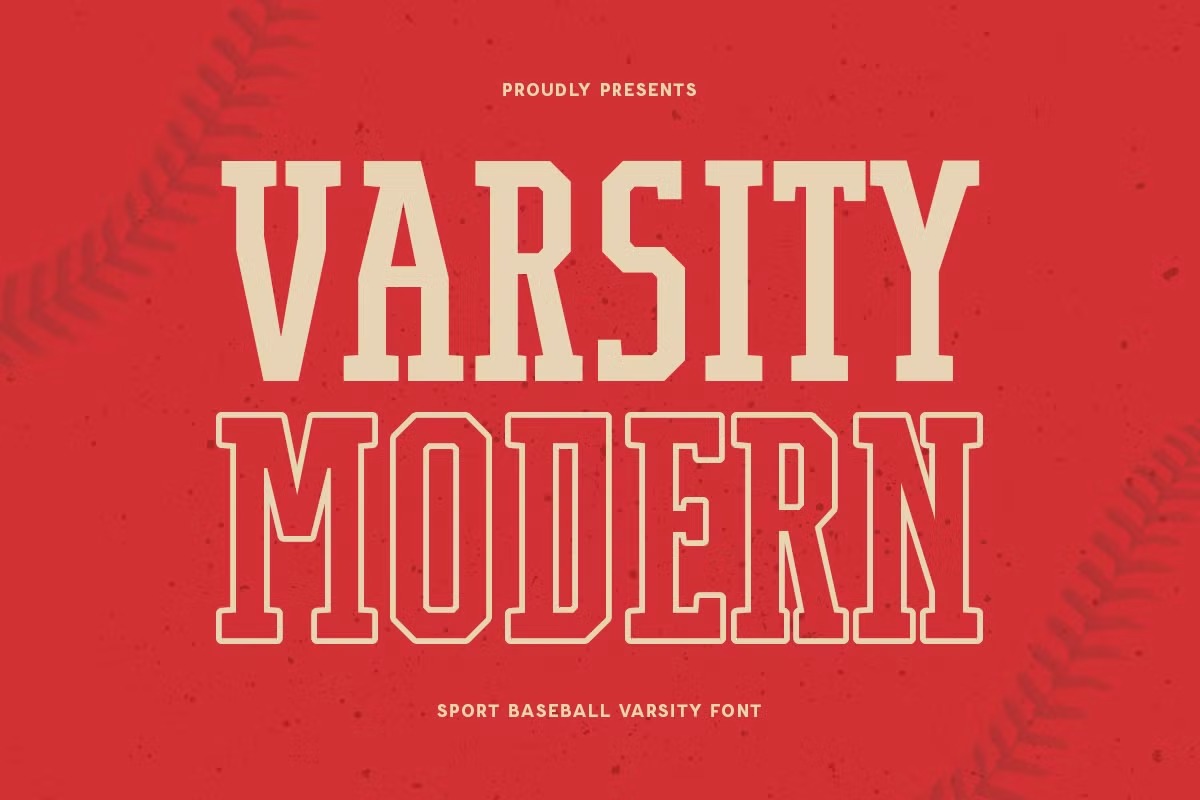
Varsity Modern - Free Sport Baseball Font
Transform your sports designs with Varsity Modern - the bold slab serif that captures authentic athletic spirit. Inspired by the dynamic energy of varsity sports and baseball tradition, Varsity Modern delivers the excitement of athletic competition directly to your creative projects. This powerful typeface merges classic varsity aesthetics with contemporary design sensibilities, making it the perfect choice for team branding, sports merchandise, and athletic-themed creative work. Key Font Featur...